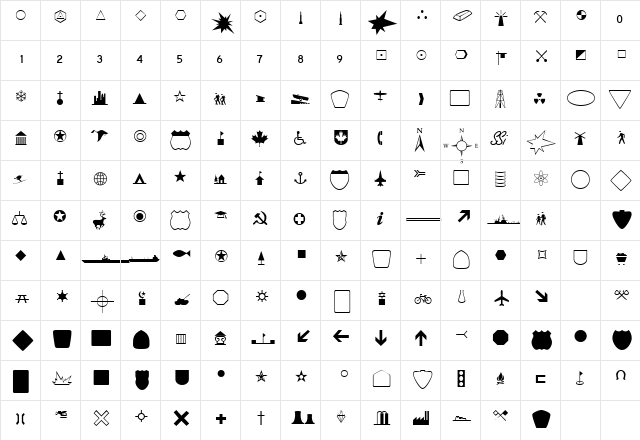
CartographerSSK Regular
Design Context for CartographerSSK Typeface
CartographerSSK is a composed and adaptable typeface that performs quietly and consistently across a wide range of design contexts.